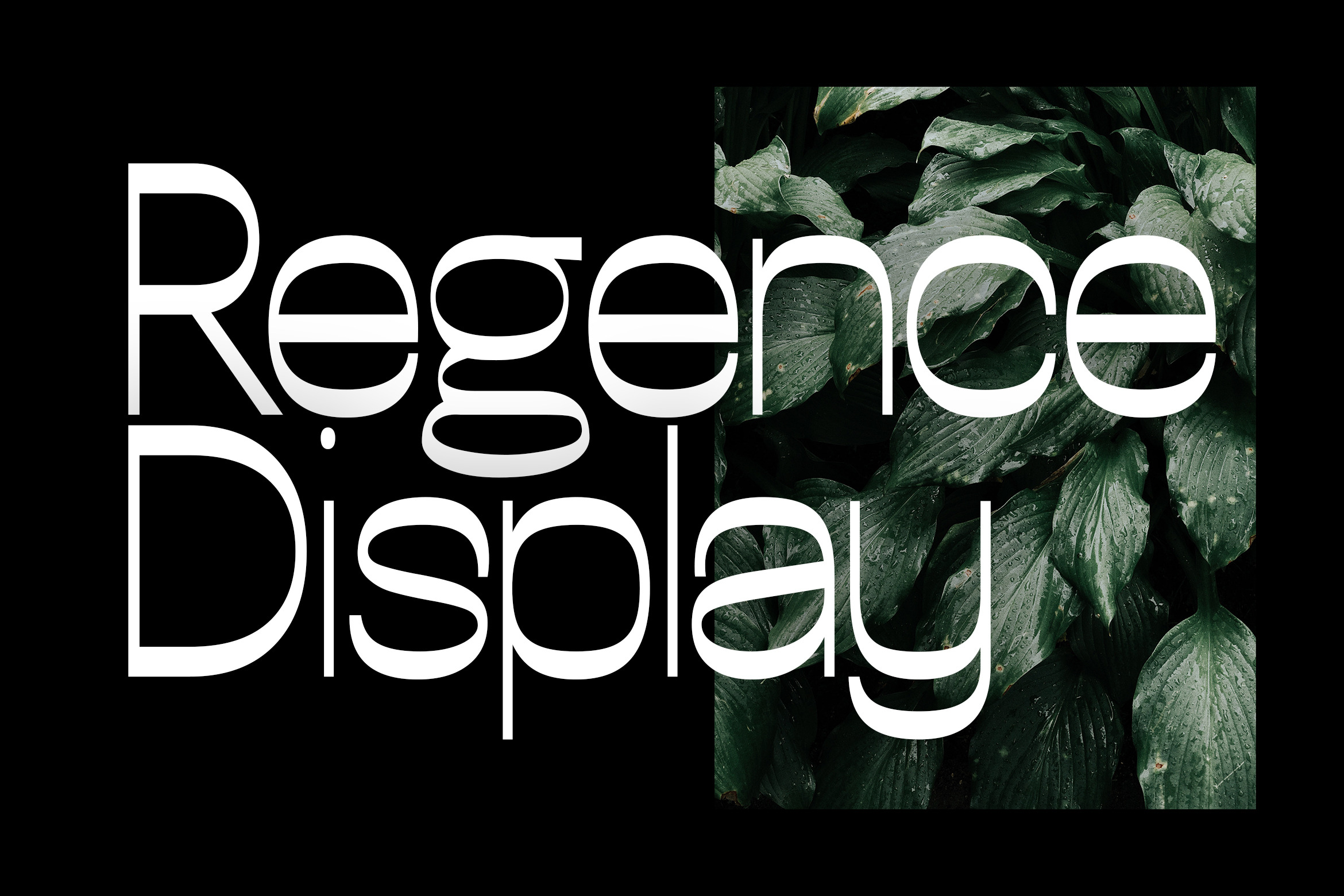
Regence Display
Regence is a modern typeface very much suitable for Film Posters, headlines, display designs, Logo Designs, Big Banners. Classic & Decorative Typography Web Designs.
- uppercase and lowercase letters
- Alternatives
- numbers
- punctuation